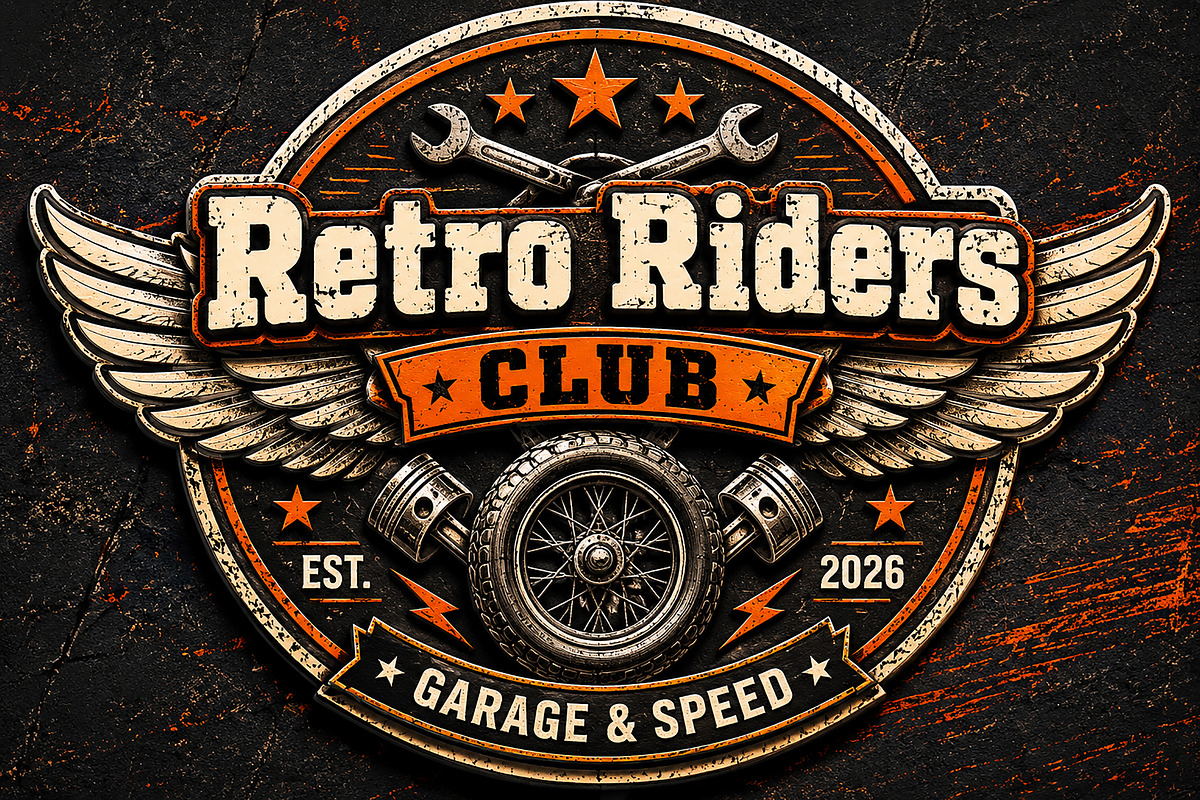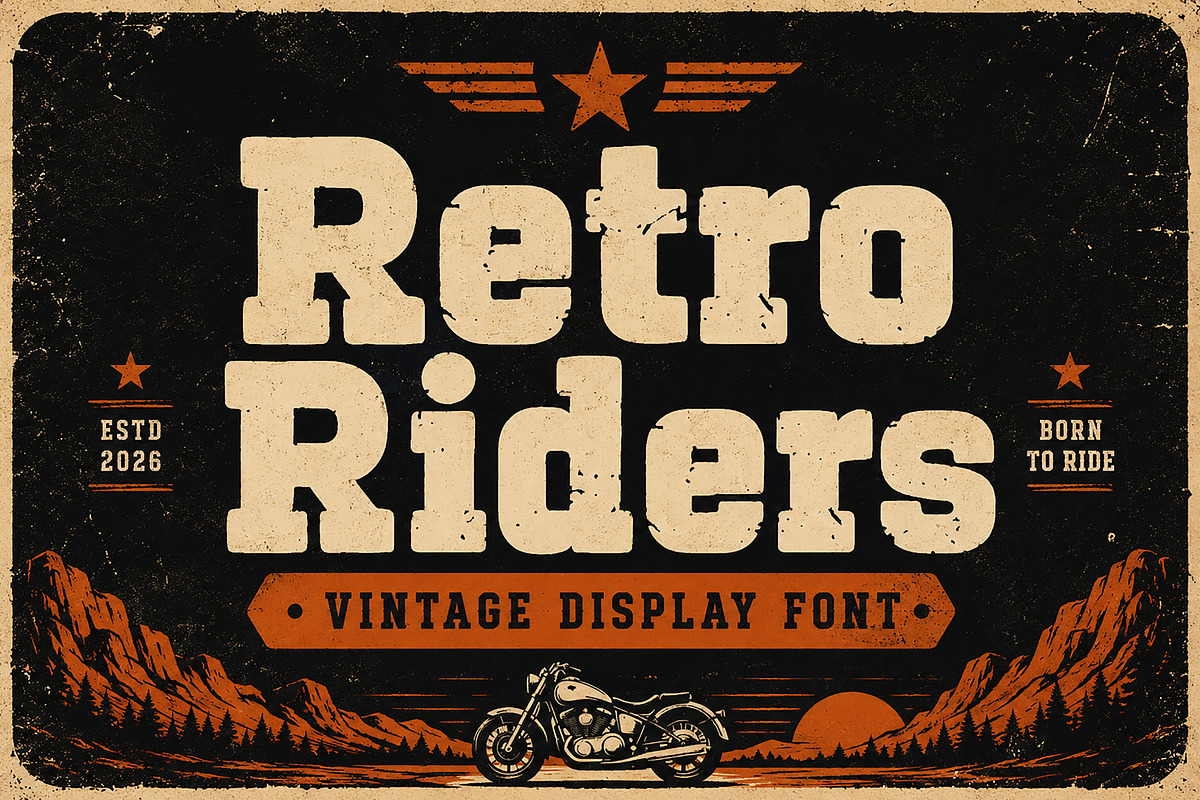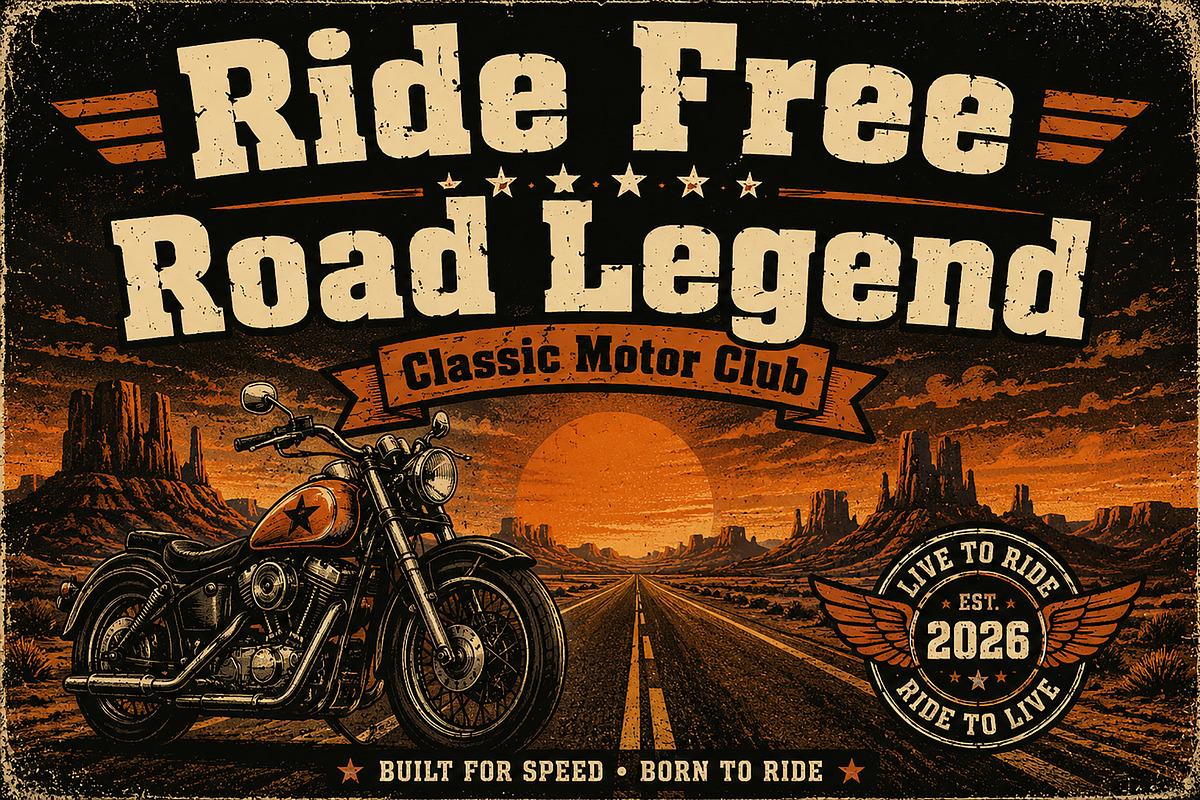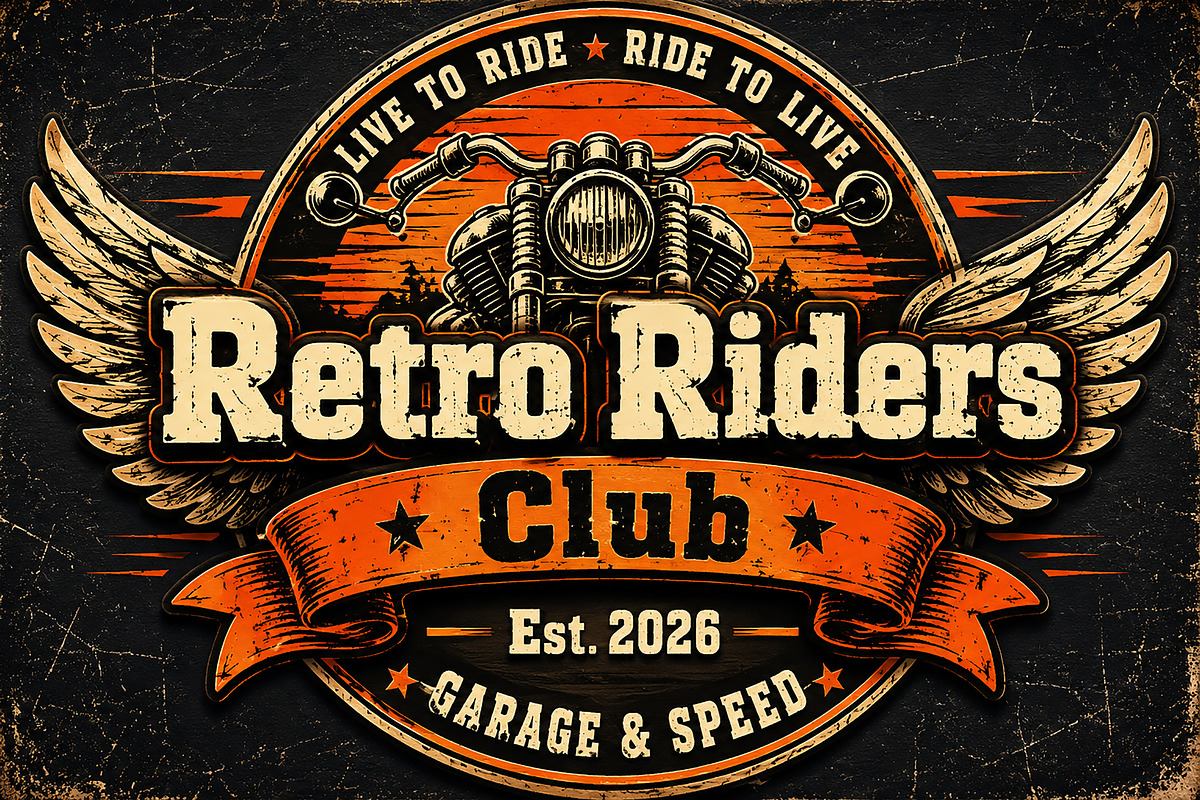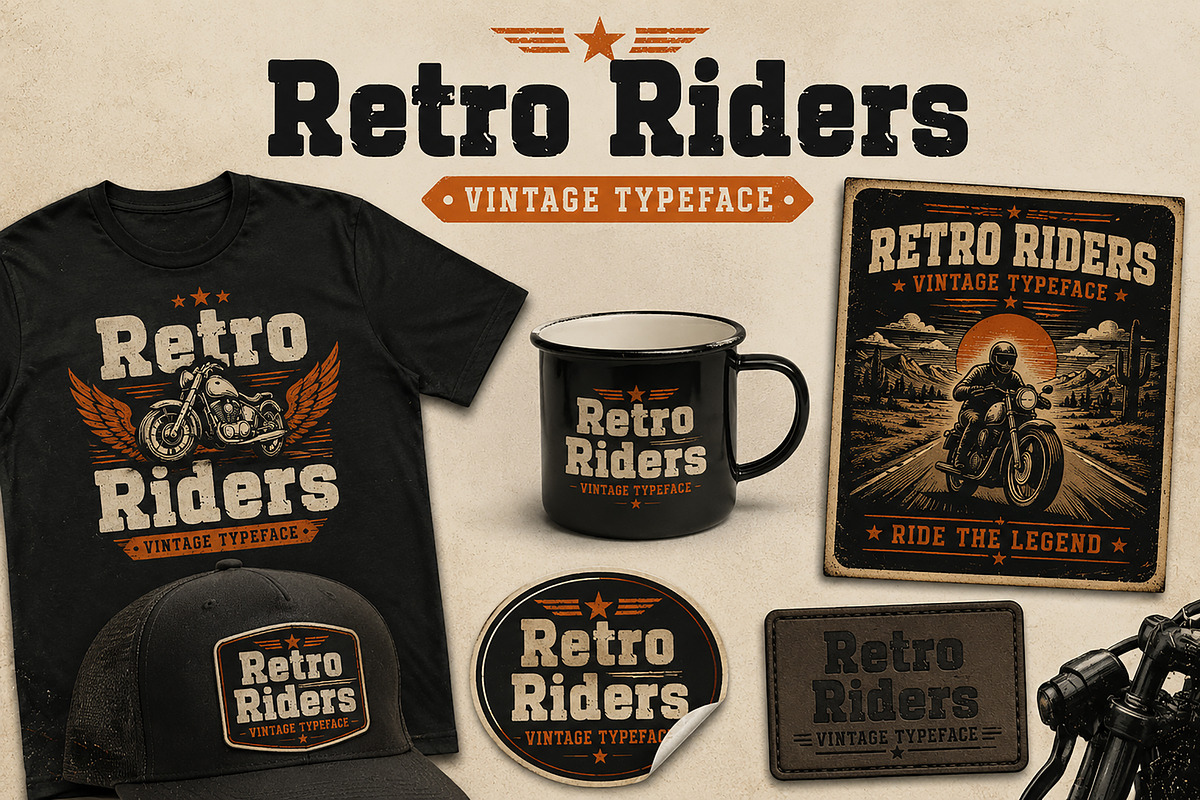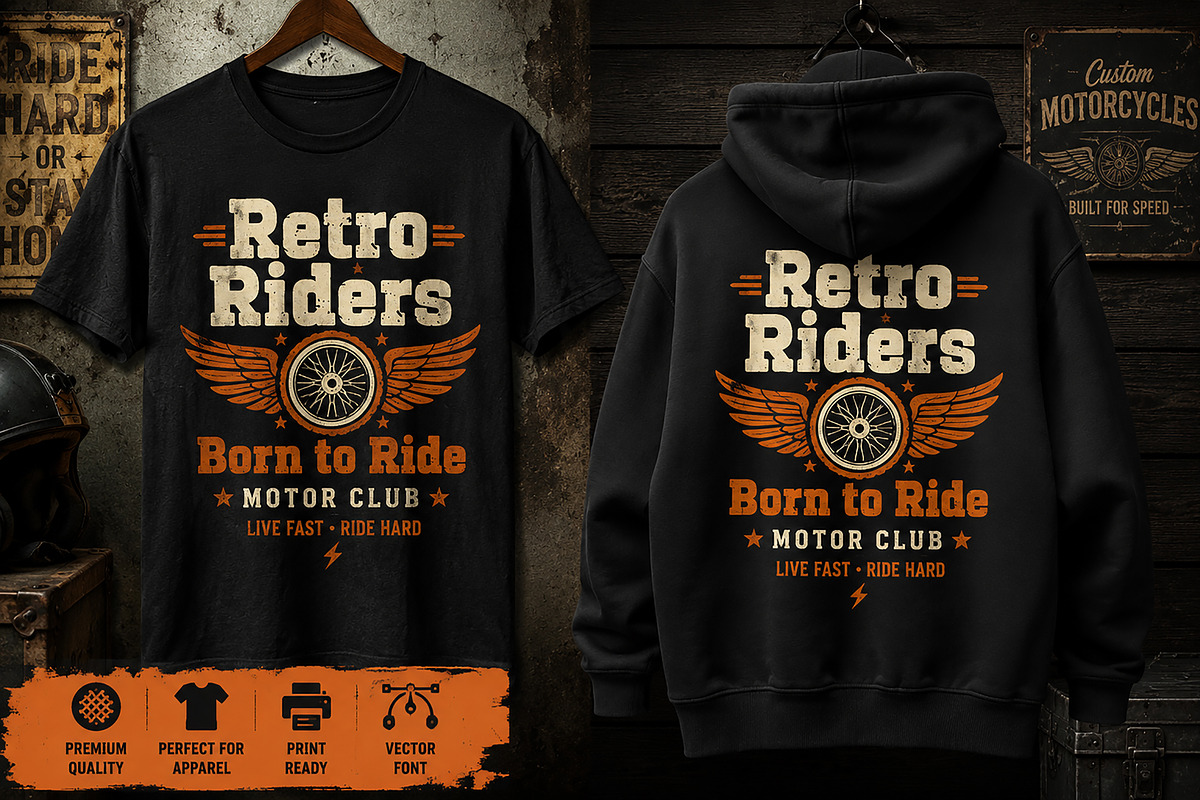
Retro Riders
Retro Riders – Vintage Display Font
Retro Riders is a bold vintage display font inspired by classic motorcycle culture, retro biker posters, garage signage, and old-school Americana typography. Featuring strong letterforms with a distressed rugged texture, this typeface delivers an authentic retro look perfect for eye-catching branding and vintage-inspired design projects.
Whether you’re creating logos, apparel graphics, posters, packaging, badges, stickers, or social media content, Retro Riders adds a powerful handcrafted character that instantly stands out. Designed for creators who love biker aesthetics, western vibes, retro branding, and rugged typography styles.
Perfect for motorcycle brands, custom garage projects, t-shirt businesses, print-on-demand products, vintage labels, and bold headline designs.
Motorcycle & Biker Branding
Vintage Logos & Badges
T-shirt & Apparel Design
Retro Posters & Flyers
Garage & Workshop Signage
Packaging & Labels
Stickers & Patches
Print-on-Demand Products
Book Covers & Merchandise
Distressed Vintage Texture
Bold Retro Display Style